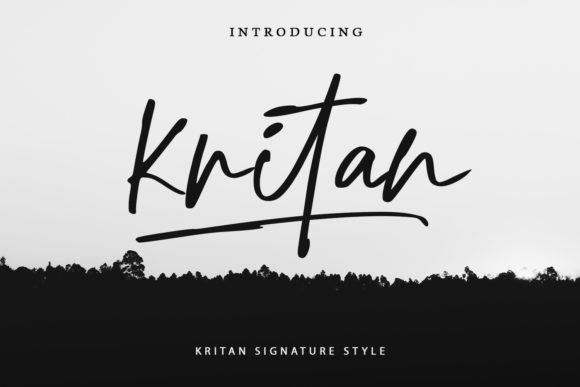
Behold, Kritan, the script font that captivates with its audacious beauty. Prosperos, the mastermind behind this typographic marvel, has poured artistry and elegance into each letterform, resulting in a font that radiates glamour and sophistication.
Kritan's fluid strokes dance across the page, weaving a tapestry of visual intrigue. The graceful curves and delicate flourishes evoke a sense of luxury and refinement, making this font the perfect choice for branding, packaging, and editorial designs. Whether you seek to create an unforgettable logo, design a captivating poster, or craft an alluring invitation, Kritan will elevate your project with its timeless beauty.
Indulge in the versatility of Kritan. With its diverse range of weights and styles, this font effortlessly adapts to any design concept. From delicate and ethereal to bold and authoritative, Kritan possesses the power to transform your words into works of art. Unleash your creativity and let Kritan guide you to typographic splendor.
Experience the transformative power of Kritan in your next design project. Witness the allure of your words as they take on a new life, captivating your audience with their elegance and grace. Let Kritan be your muse, inspiring you to create designs that resonate, designs that leave an indelible mark on the hearts and minds of all who behold them.